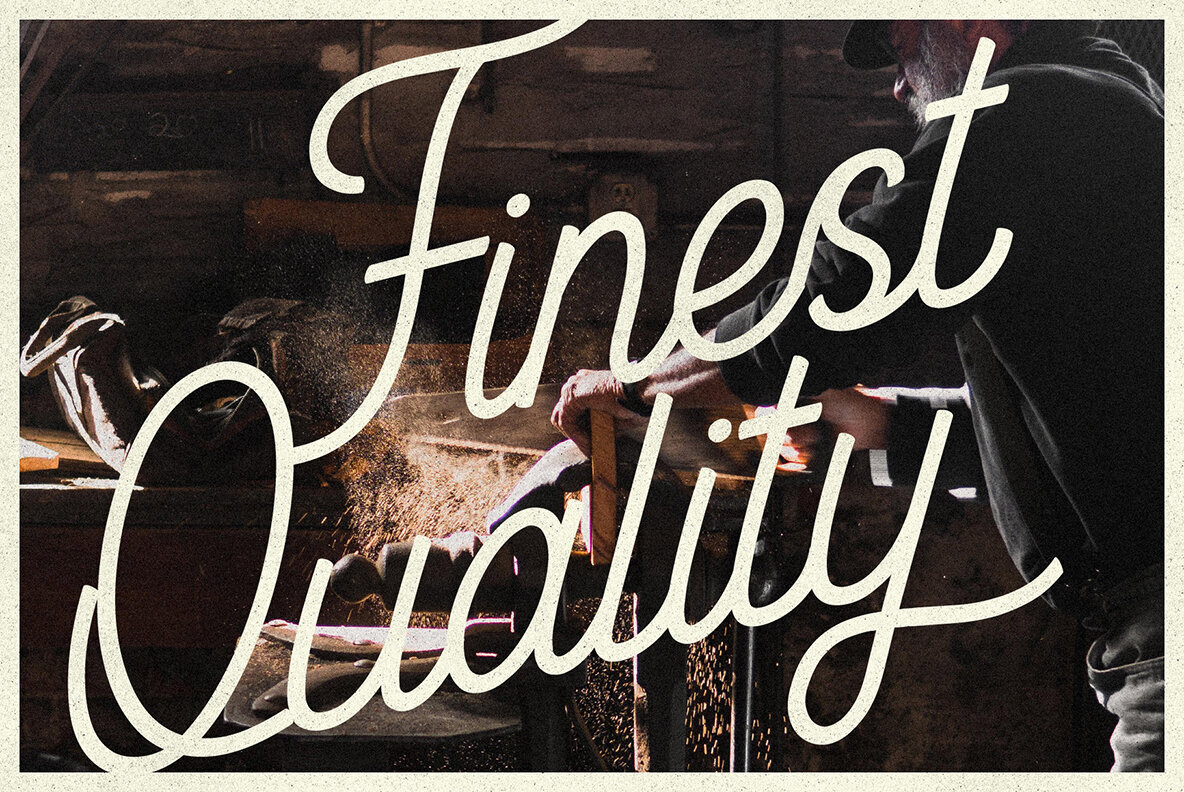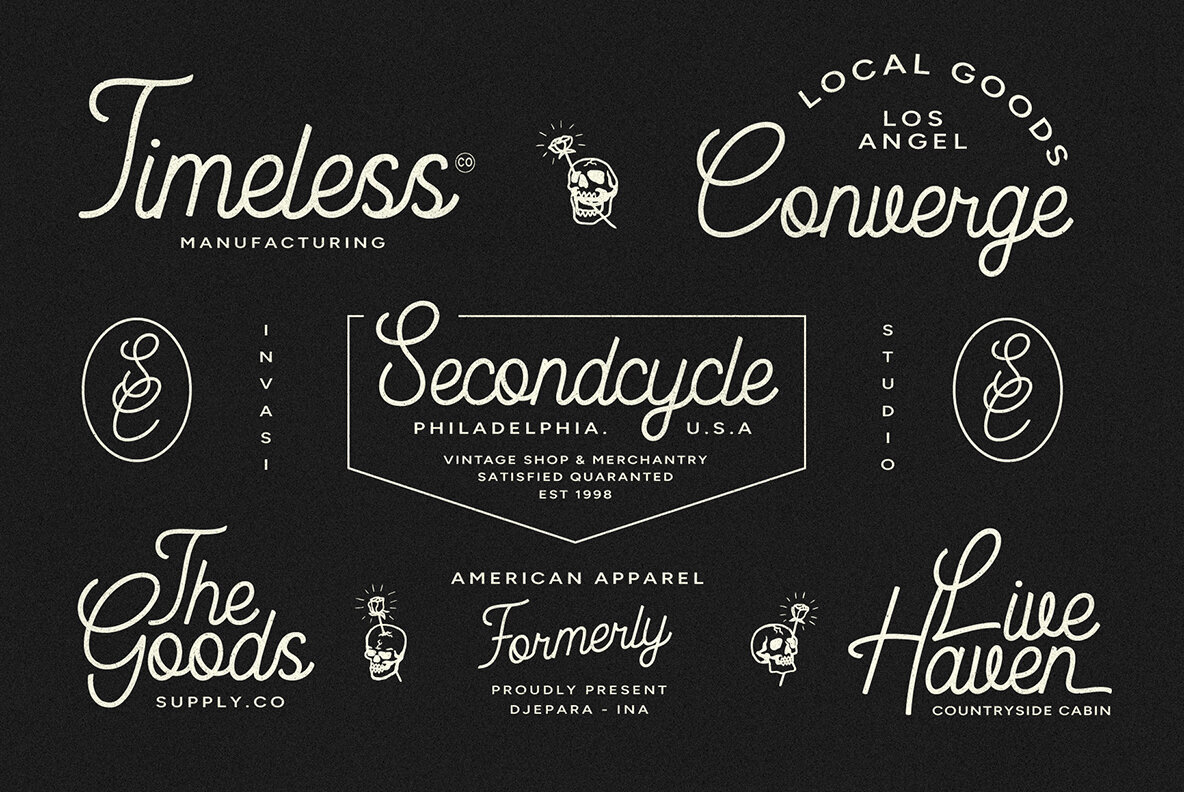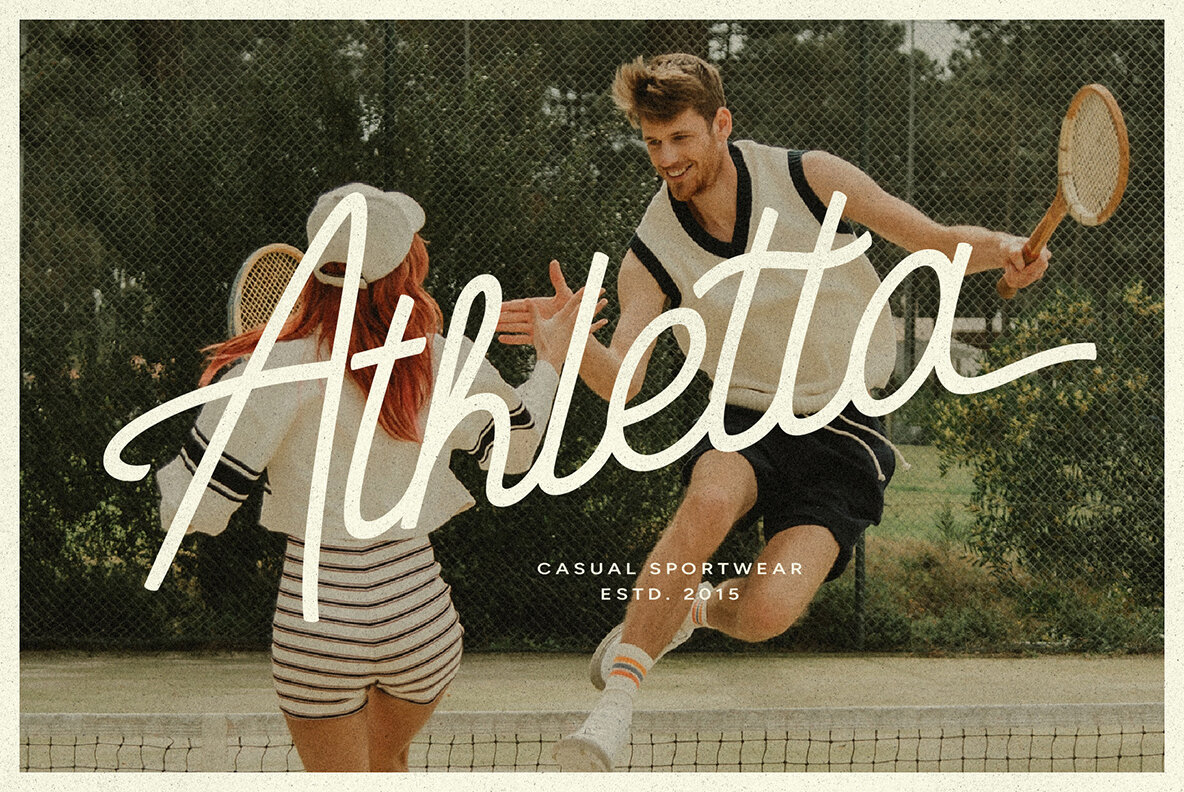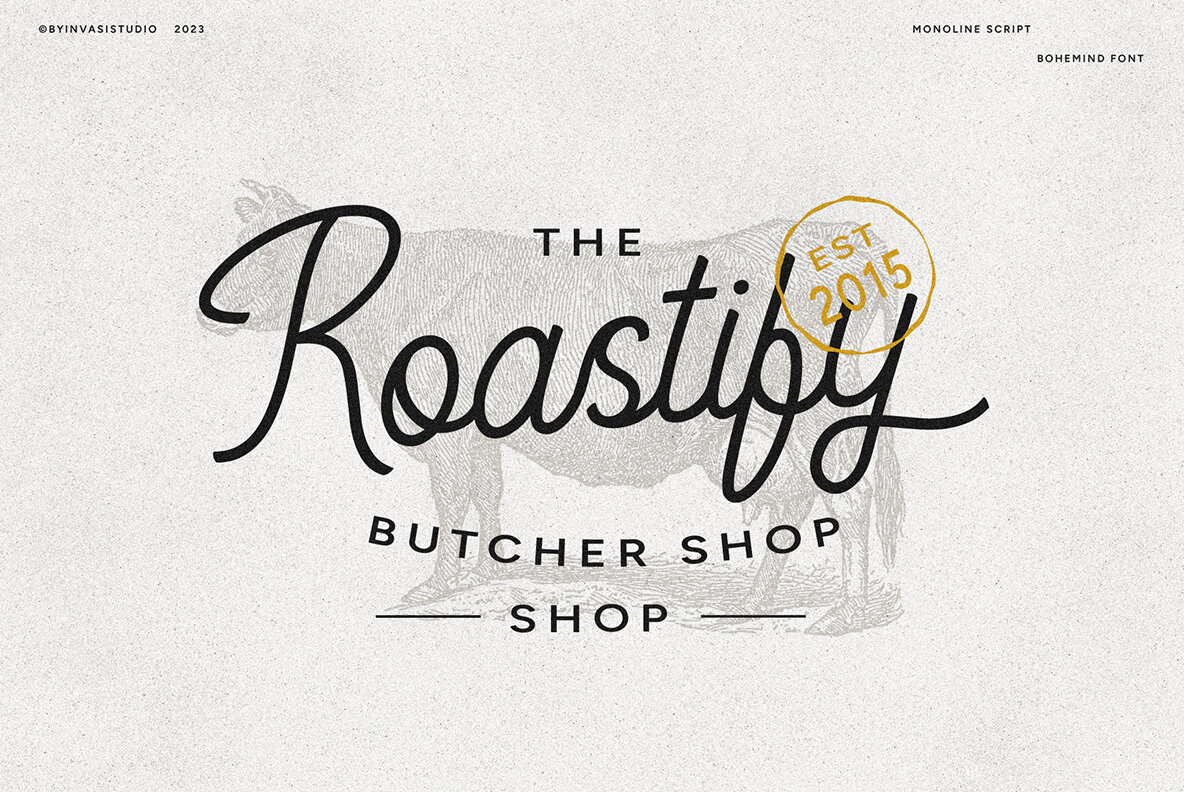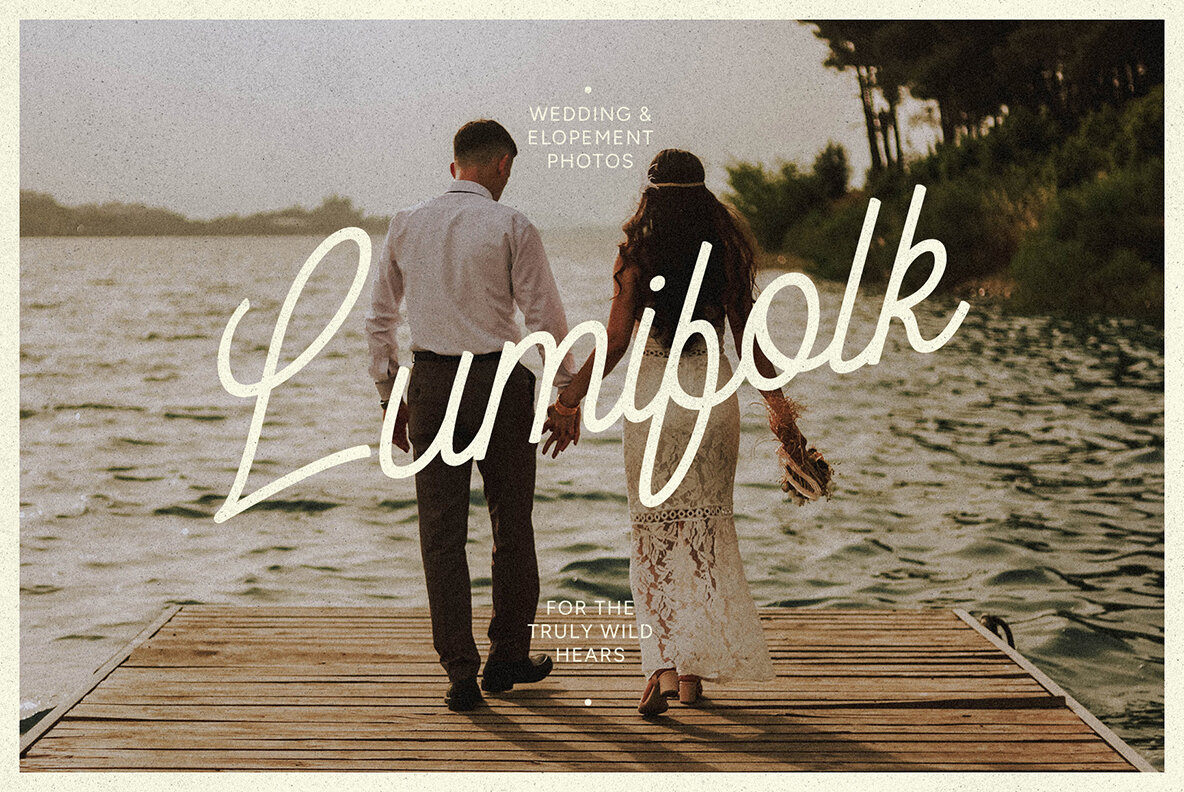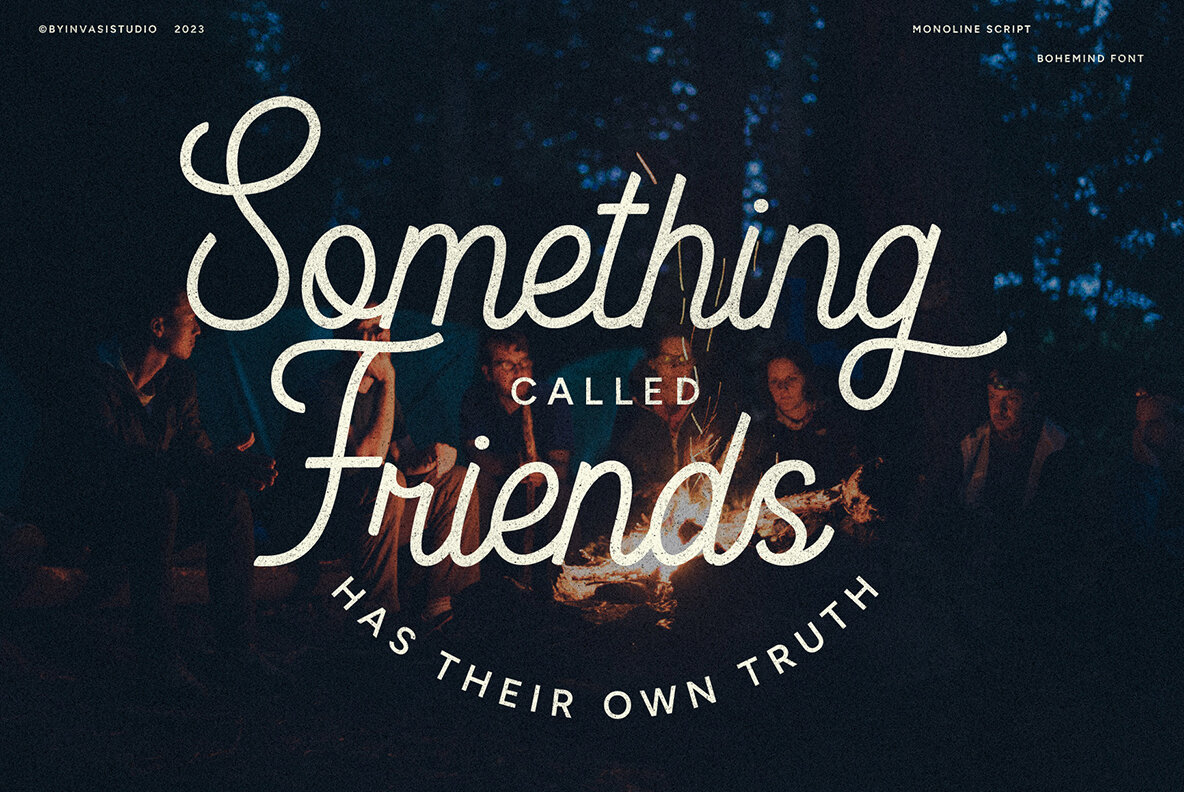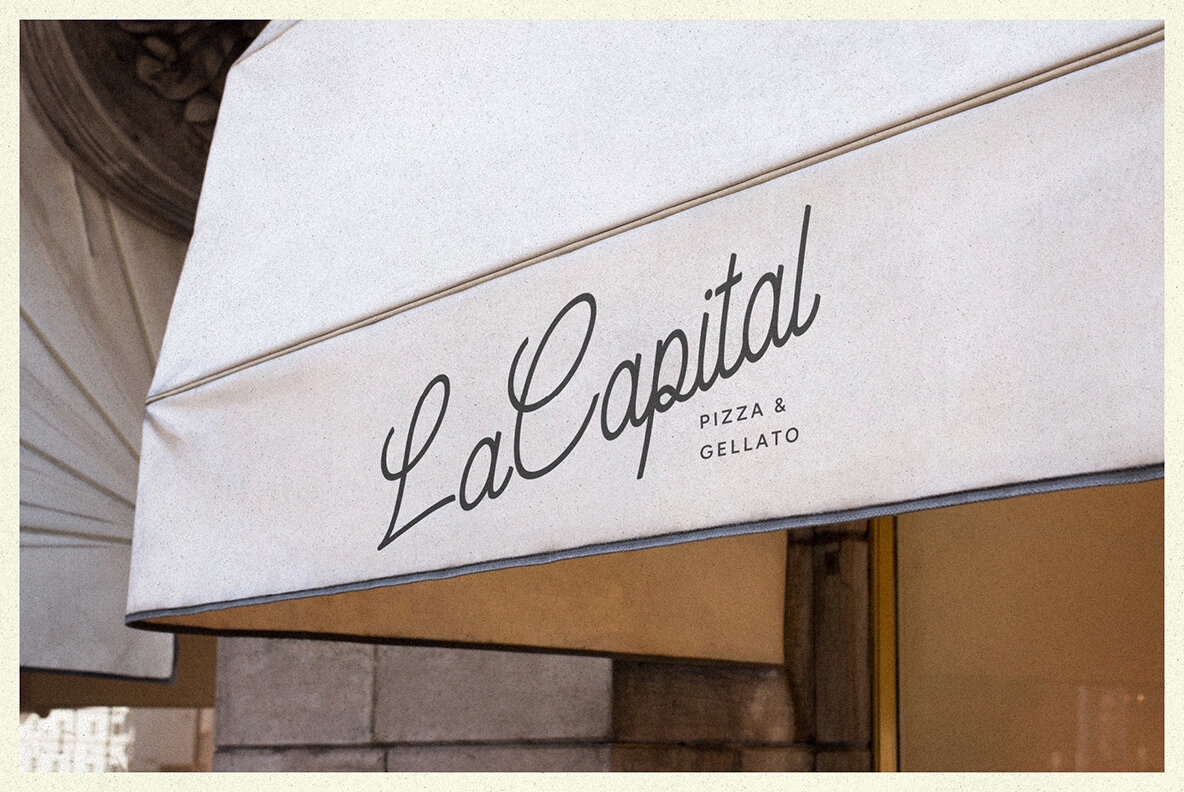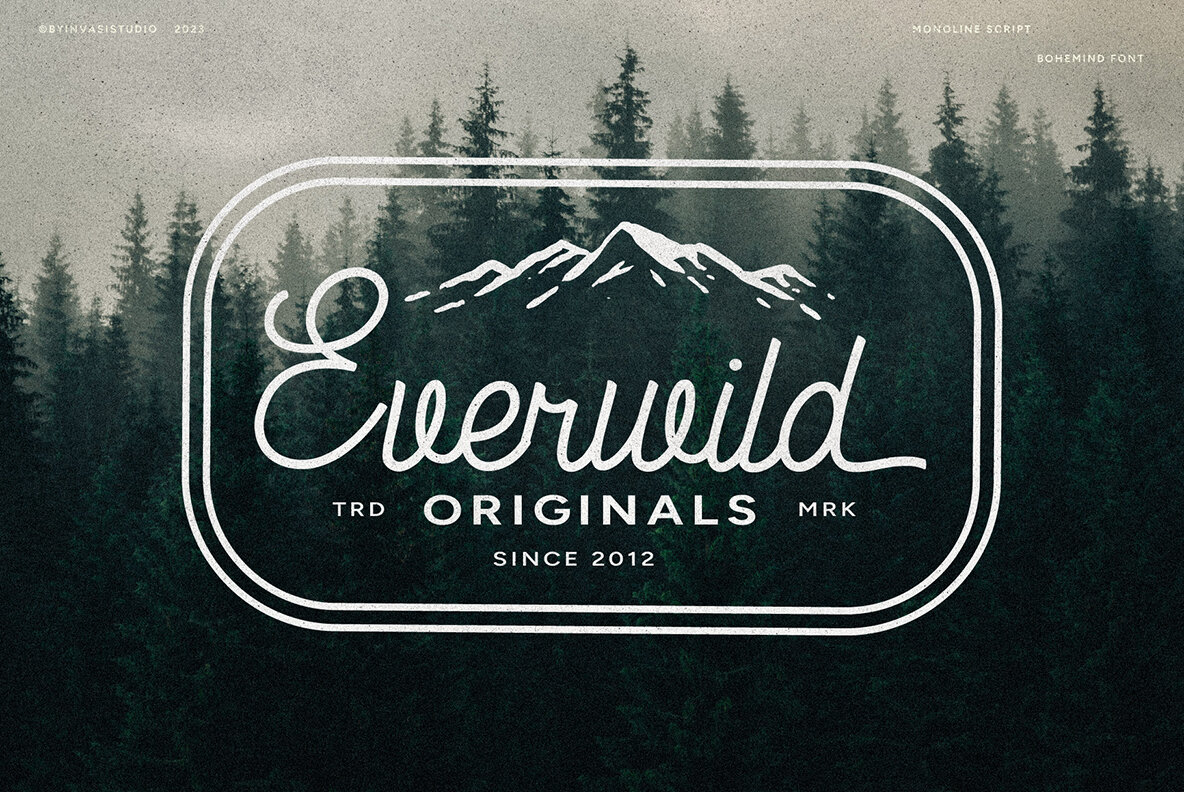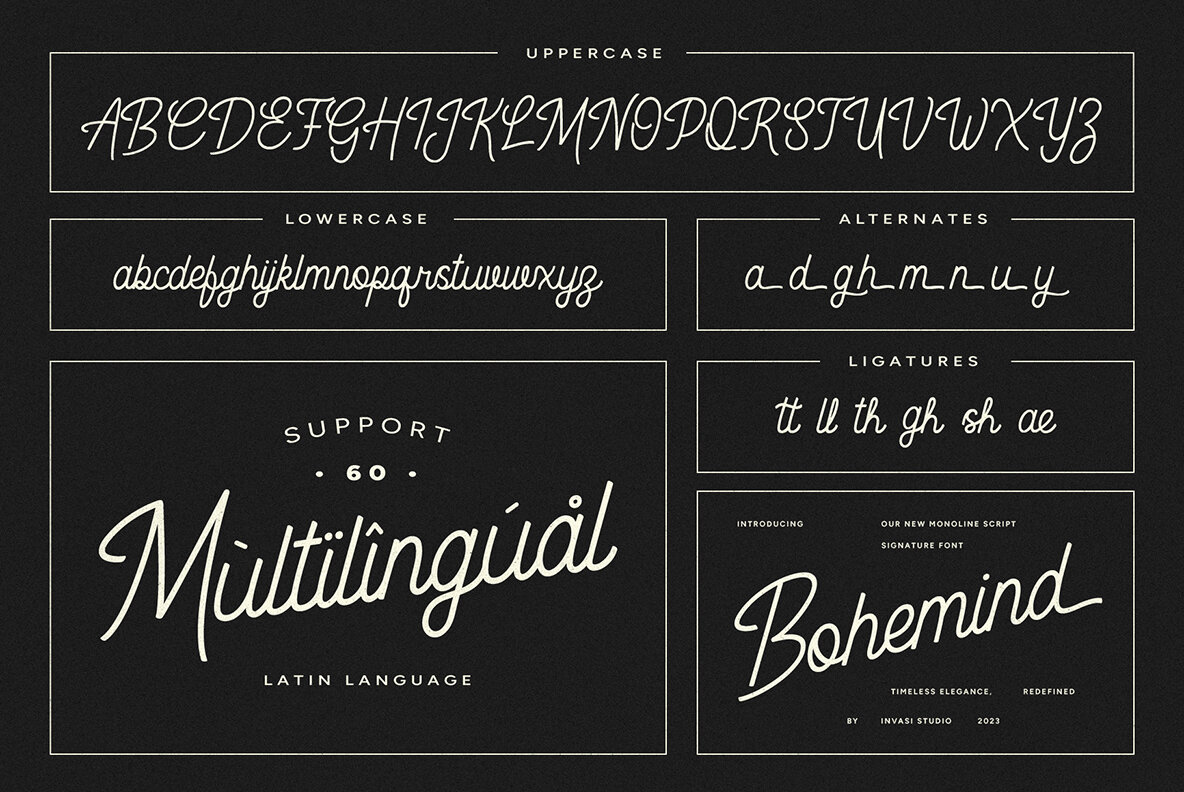
Bohemind Font
Introducing Bohemind, a sophisticated monoline signature font designed to bring a vintage touch to your projects. With its distinct style, this script font elevates your designs, captivating the attention of all who see it. Bohemind offers ending alternate swashes for added elegance, while its ligatures and multilingual Latin language support make it versatile for various applications. Ideal for logos, wedding invitations, or posters, Bohemind sets your design apart from the rest. Experience the perfect blend of style and functionality with Bohemind. Its vintage charm and unique features ensure ease of use and customization for your design projects. Don't wait – give Bohemind a try and witness the impact it brings to your creations.